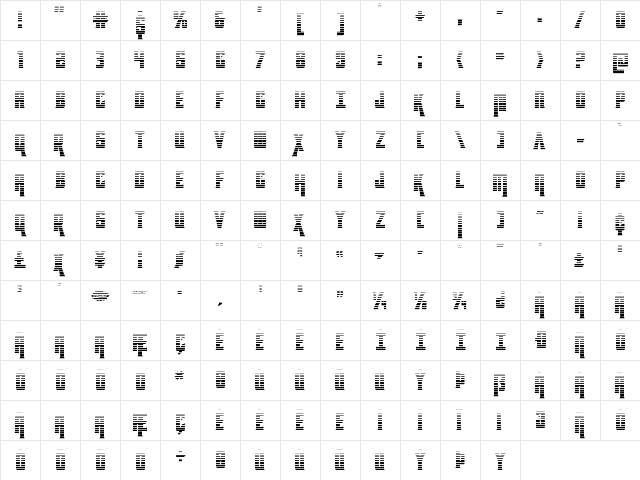
Kondor Gradient Regular
Design Context for Kondor Gradient Typeface
Kondor Gradient is a composed and adaptable typeface that performs quietly and consistently across a wide range of design contexts.